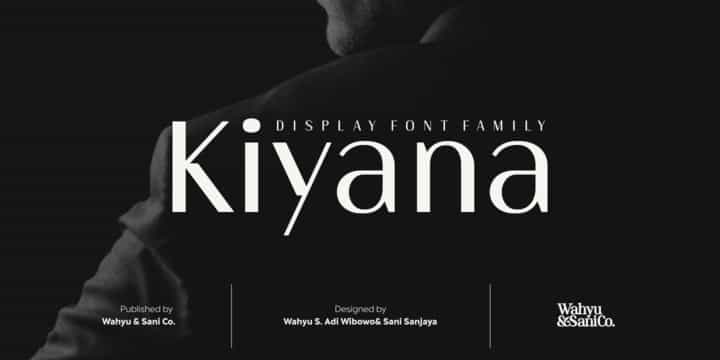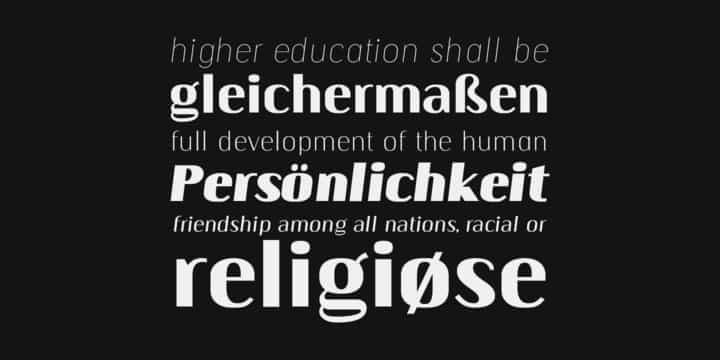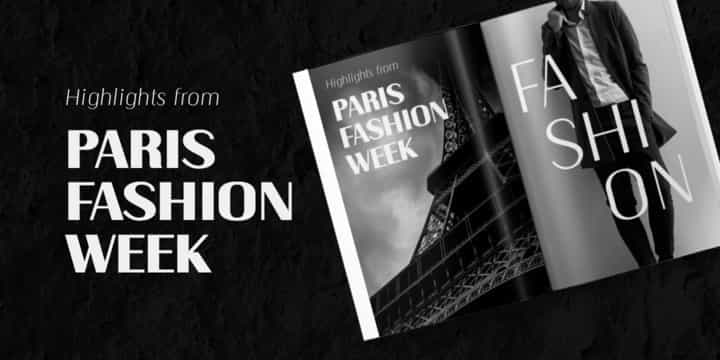
Introducing Kiyana Font. This font is named as ‘Modern Style’ and it is designed and shared by Wahyu & Sani Co. This is a contemporary high contrast display sans serif typeface inspired from the modern style typefaces. Sears comes in 9 weights ranging from thin to black and with both uprights and obliques.